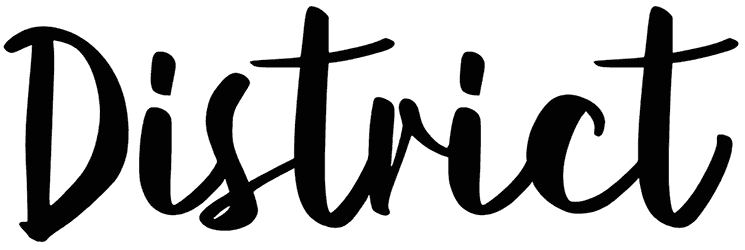
District Font
If you feel the standard fonts that you usually use in your designs do not work well enough, add District to your collection. This handwritten font is a versatile tool in your toolbox that can satisfy the taste of different customers in the field of designing posters, billboards, websites, and tattoos.
The beauty of the District is the hand-made signs and complications that have been added to it, and can create a natural and organic feeling for you.